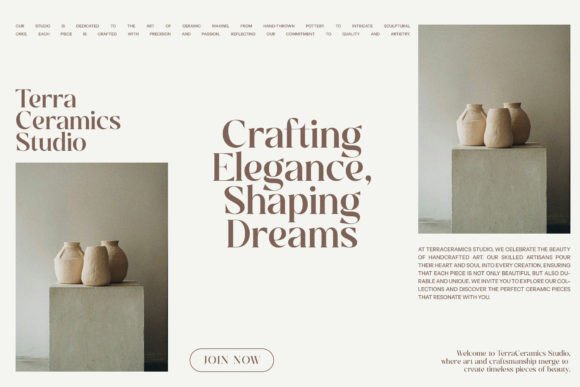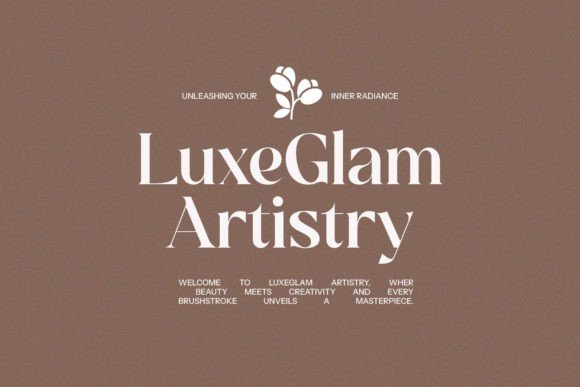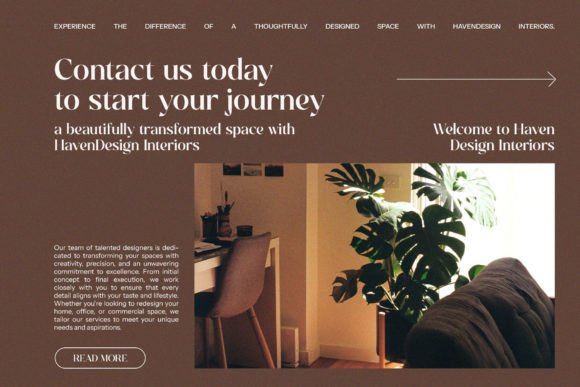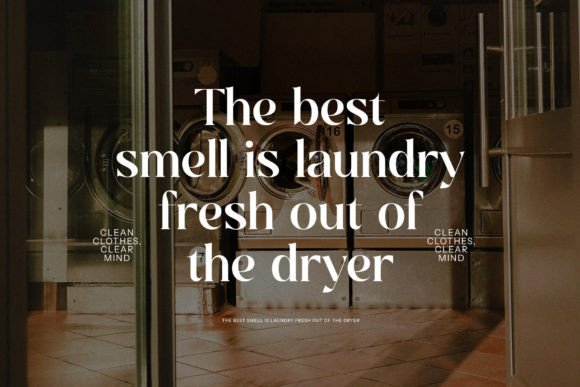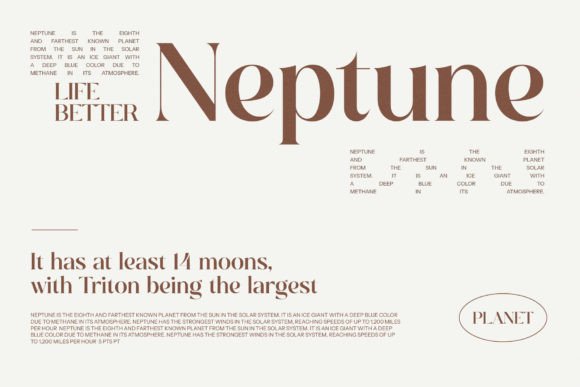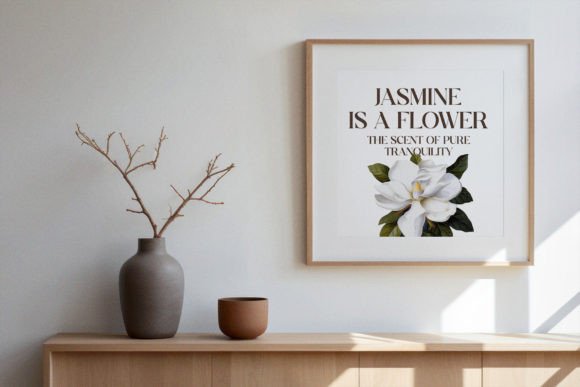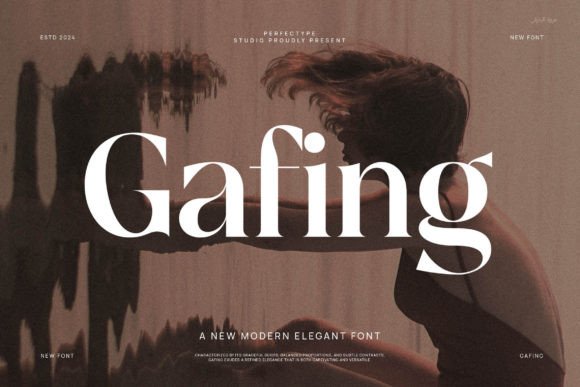
Gafing Font: Elevate Your Design with Classic Elegance and Modern Flair
In the world of typography, fonts play a crucial role in conveying the tone and aesthetic of a design. For those seeking a balance between timeless sophistication and contemporary style, the Gafing font emerges as an exceptional choice. This stylish serif font seamlessly blends classic elegance with modern design elements, making it an ideal selection for designers and crafters aiming to infuse their projects with a refined and classy look.
The Essence of Gafing Font
Gafing is characterized by its graceful, flowing curves and sophisticated details. Each letter is meticulously crafted to exude an air of elegance and luxury, perfect for projects that demand a high level of refinement. Whether you’re working on a branding project, a website, a magazine, or any other design endeavor, Gafing offers the versatility to enhance your text with a touch of class.
Key Features of Gafing Font
- Serif Elegance: The serif details in Gafing add a traditional touch to your designs, evoking a sense of heritage and reliability.
- Modern Twists: Despite its classic roots, Gafing incorporates modern design elements that make it versatile and suitable for a wide range of applications.
- Flowing Curves: The font’s letters are designed with flowing curves that enhance readability and aesthetic appeal.
- Sophisticated Details: Intricate details in each character make Gafing stand out, adding depth and sophistication to your text.
Applications of Gafing Font
The versatility of Gafing makes it suitable for various design projects. Here are some of the areas where Gafing can make a significant impact:
- Branding and Logo Design: Use Gafing to create logos and brand identities that convey elegance, professionalism, and sophistication.
- Web Design: Enhance your website’s typography with Gafing, making it perfect for headings, titles, and any text that needs to stand out with a classy appeal.
- Print Design: Whether it’s for a luxury magazine, a high-end fashion brochure, or a premium product catalog, Gafing can elevate your print materials with its refined look.
- Packaging: Add a touch of elegance to your product packaging with Gafing, making your products stand out on the shelves.
Why Choose Gafing Font?
Choosing Gafing for your design projects comes with several benefits:
- Unique Aesthetic: Gafing offers a unique blend of classic and modern design, making your projects memorable and distinctive.
- High Readability: Despite its elegant and sophisticated design, Gafing maintains high readability, ensuring your message is conveyed clearly.
- Versatility: The font’s versatility means it can be used across various design projects, from digital to print.
Gafing font is a powerful tool for designers and crafters looking to add a touch of classic elegance with a modern twist to their projects. Its sophisticated details, flowing curves, and versatile nature make it an excellent choice for a wide range of applications. By incorporating Gafing into your design repertoire, you can ensure your projects exude refinement, class, and a timeless appeal. Whether you’re aiming to create a luxurious brand identity, a stylish website, or elegant print materials, Gafing is poised to elevate your designs to new heights of sophistication and style.